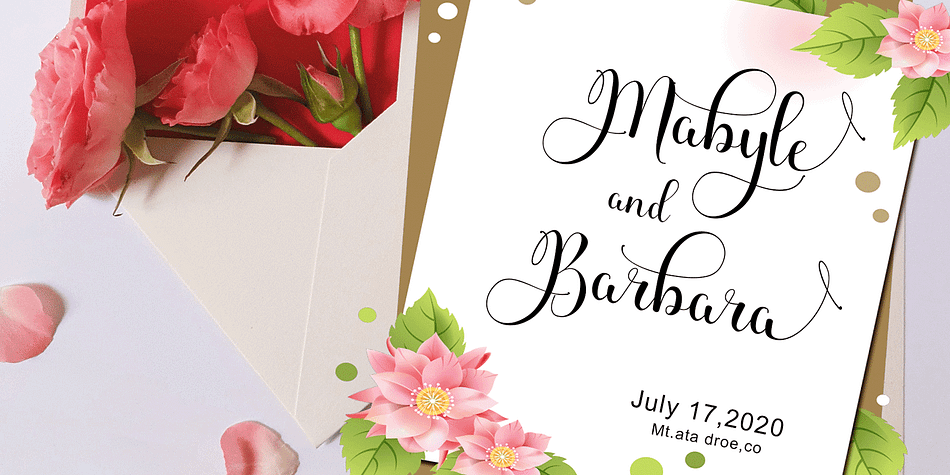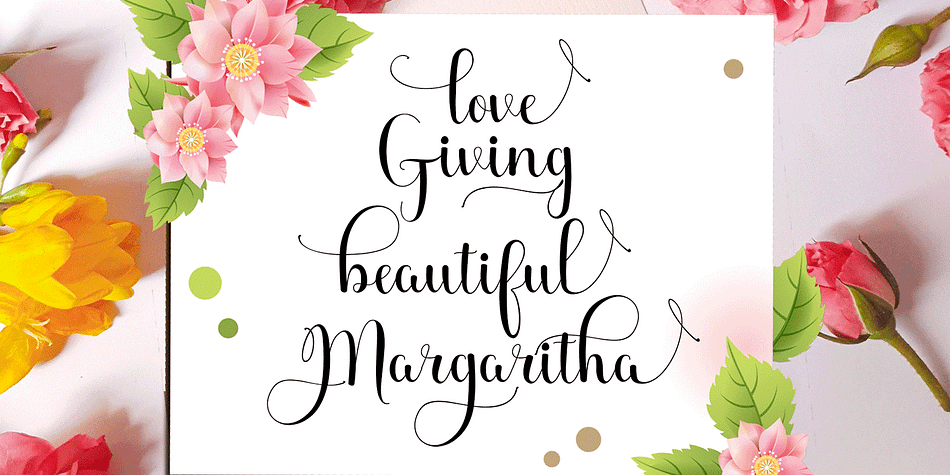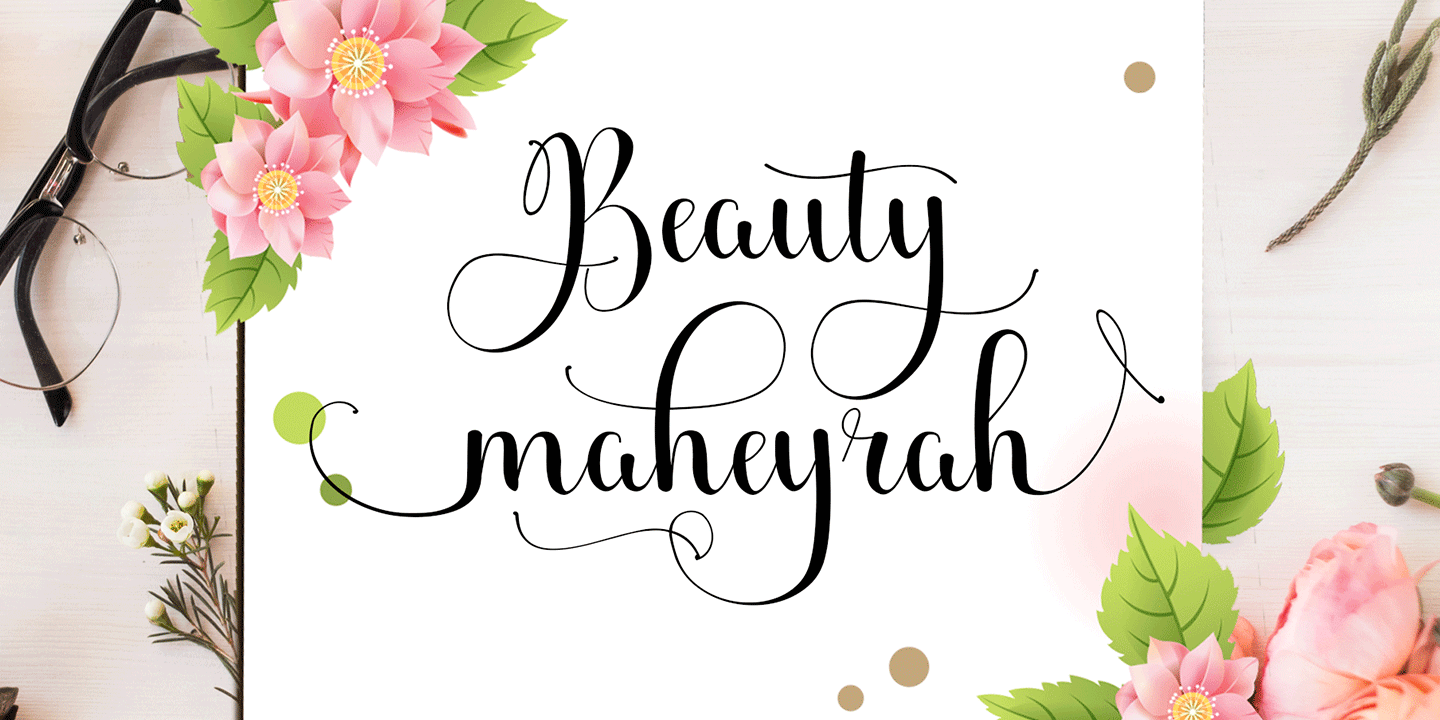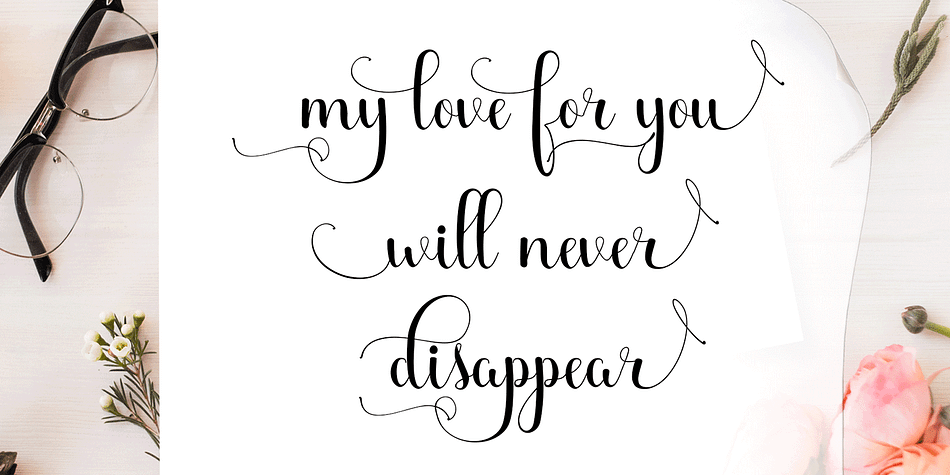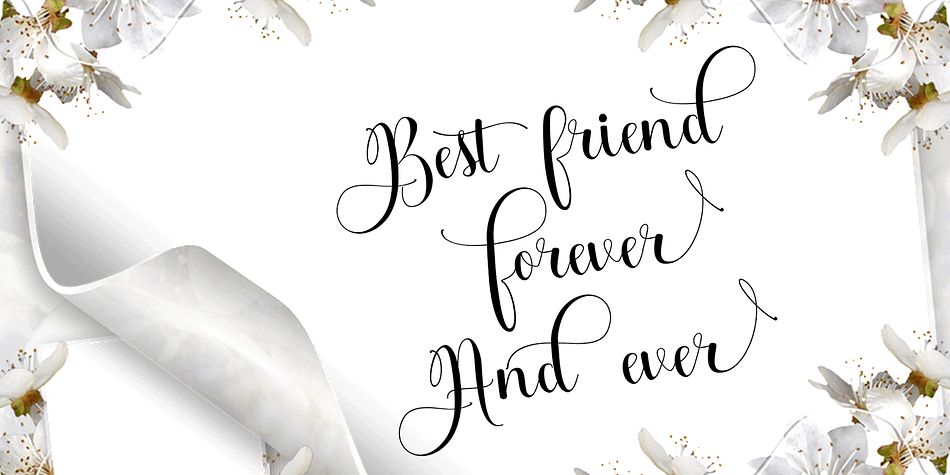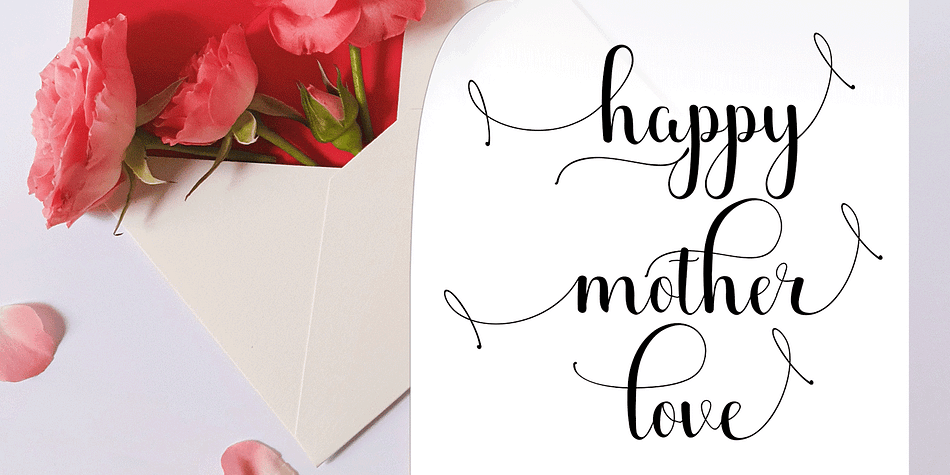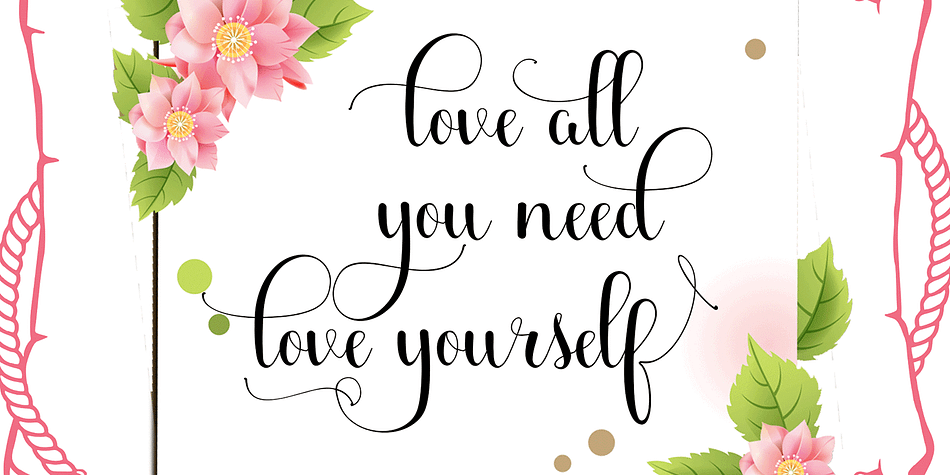
Designed by Rahmat Hidayat, Beauty maheyrah is a script font published by RtCreative.
Beauty maheyrah Modern Calligraphy. This font was designed by handwriting, and it has a modern and unique forms of calligraphy, the writing style is very natural.
The Features of this fonts is;
* Standart ligatures
* Stylistic Alternates
* Contextual Alternates
* Stylistic sets
* Swahs